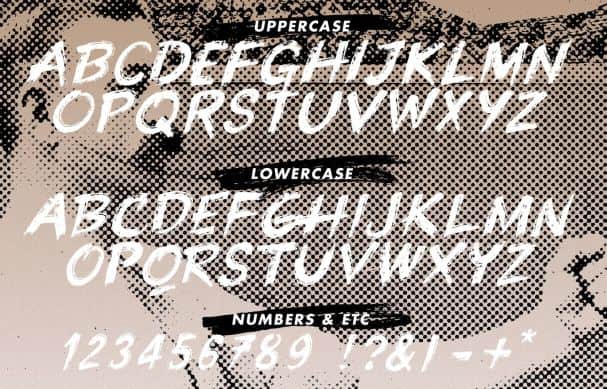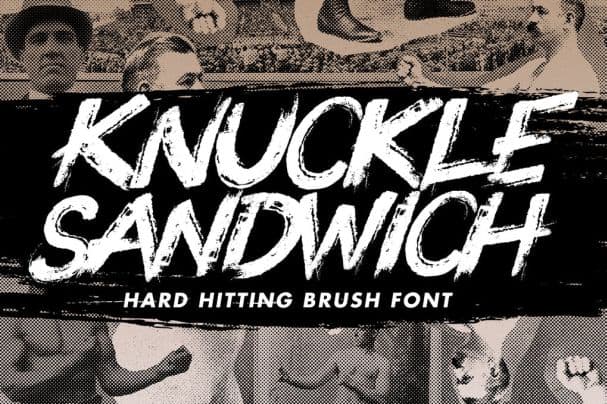
Knuckle Sandwich Font
Knuckle Sandwich Font falls into the category of the condensed fonts. This is also famous for its handwritten typeface, and it’s also listed inside Microsoft word. This font has been attractively standard thru using a needle with a tinny bush at the acrylic paper. Its appearances are tremendous in darkish paint sun shades.
It’s far the thirsty script, and we find out it no longer feasible to face up to due to its tremendous top-notch patterns. Alas, you can most, in truth, use it in adobe photoshop and illustrator. Knuckle Sandwich Font Free This font has a stylish look and touches with its threesome of plans in individually letter creation. Apply it to common to huge sizes for titles, works of artwork, and masses more.